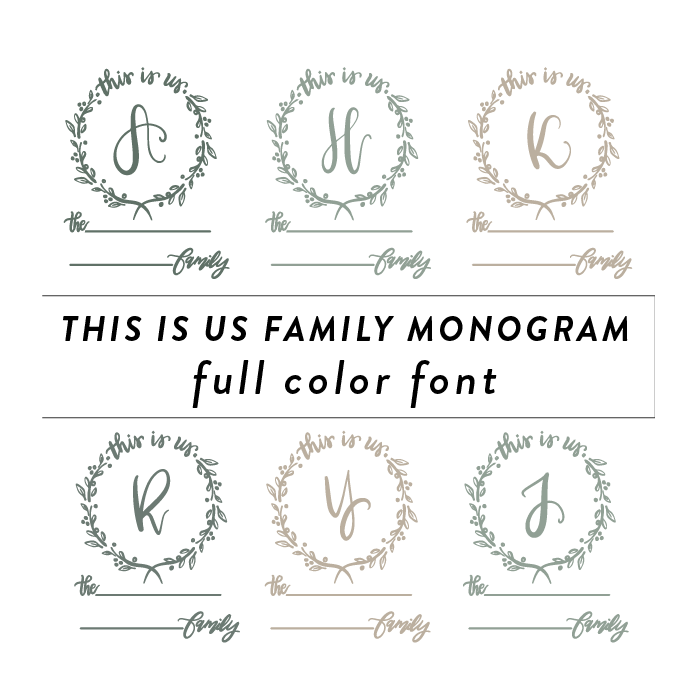
This is Us Family Monogram Font is a unique design featuring intricate tree branches and leaves intertwined to create elegant monogram frames. Perfect for family crests, wedding invitations, and personalized gifts. This color font adds a touch of nature and sophistication to any project. This font is a OTF craft font that will appear in color only when used with the silhouette software.